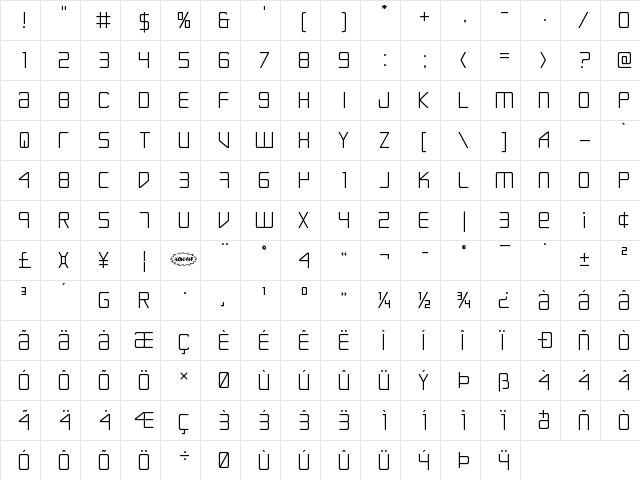
Escape Artist Ttitle Regular Font Preview
Escape Artist Ttitle Regular
Design Context for Escape Artist Ttitle Typeface
Escape Artist Ttitle takes a measured approach to typography — its balanced proportions and neutral character make it a reliable workhorse for both digital and print work.